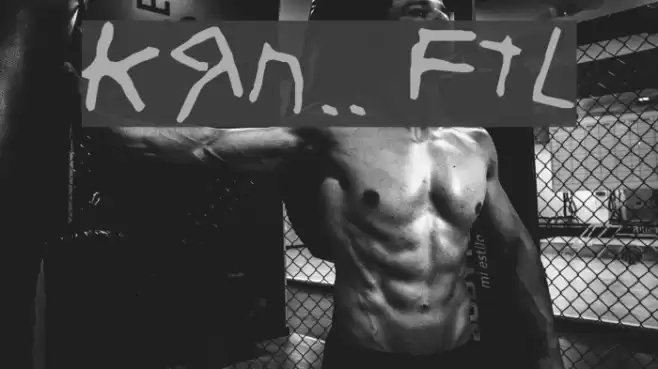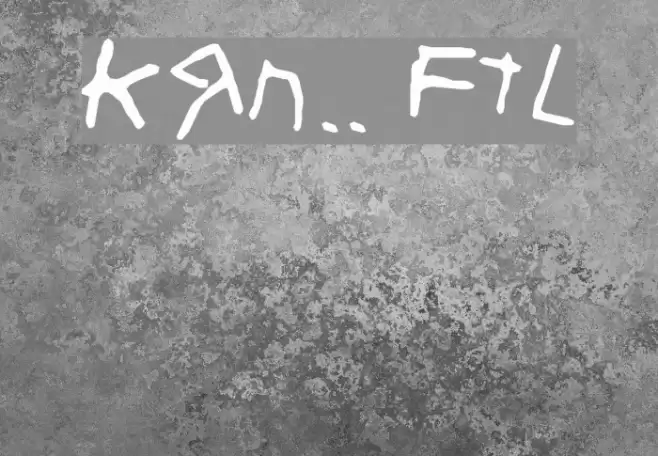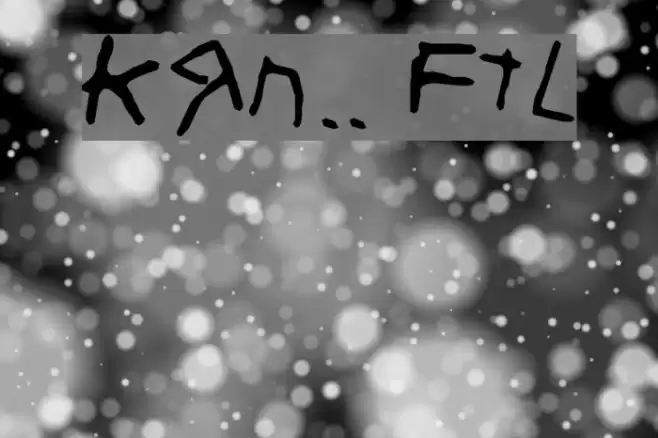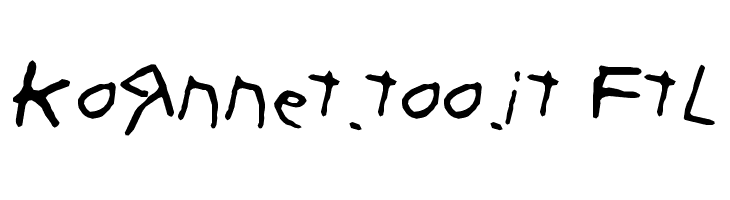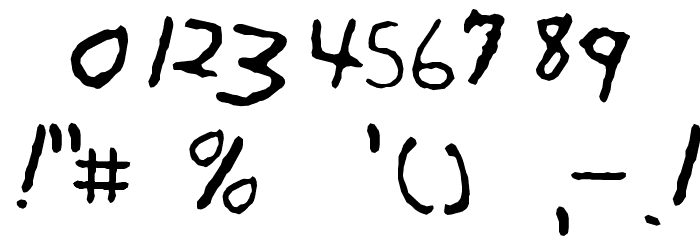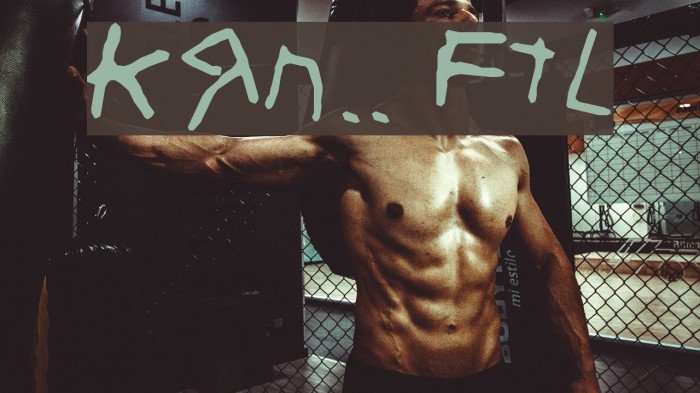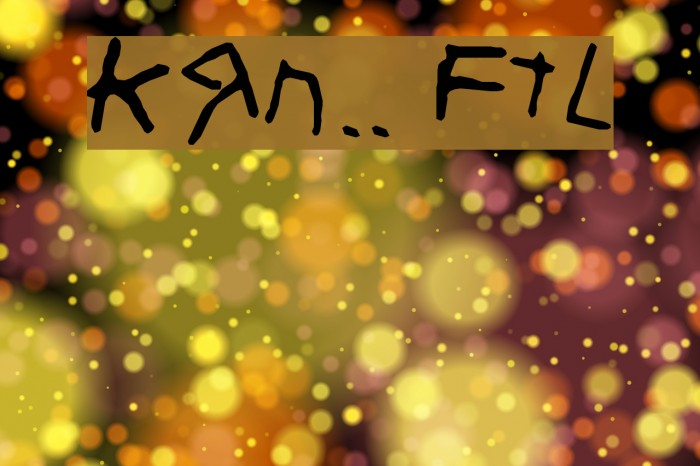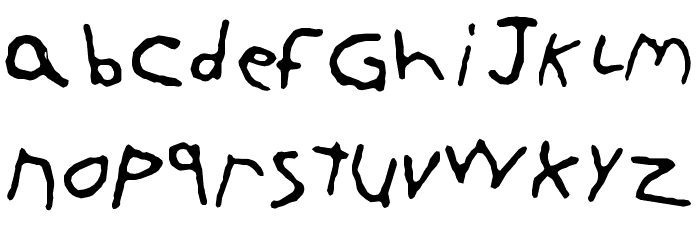
KoRnNet.too.it FTL Font
KoRnNet.too.it FTL Description
This font features a distinctly hand-drawn style, reminiscent of casual handwriting with an edgy, artistic flair. The characters are irregular and slightly distorted, giving them a unique, organic appearance. The strokes are uneven, with varying thickness that adds to the font's raw and expressive nature. Each letter seems to have its own personality, contributing to an overall playful and unconventional look. The numbers and special characters follow the same aesthetic, maintaining consistency throughout the set. This font is ideal for projects that require a personal touch or a rebellious, creative vibe.
A hand-drawn, expressive font with irregular, artistic strokes from Handwritten fonts.
- Proposed Projects: Album covers, graffiti art, edgy branding, creative posters, and personal projects.
- Use Case: Logos, Posters, Artistic projects